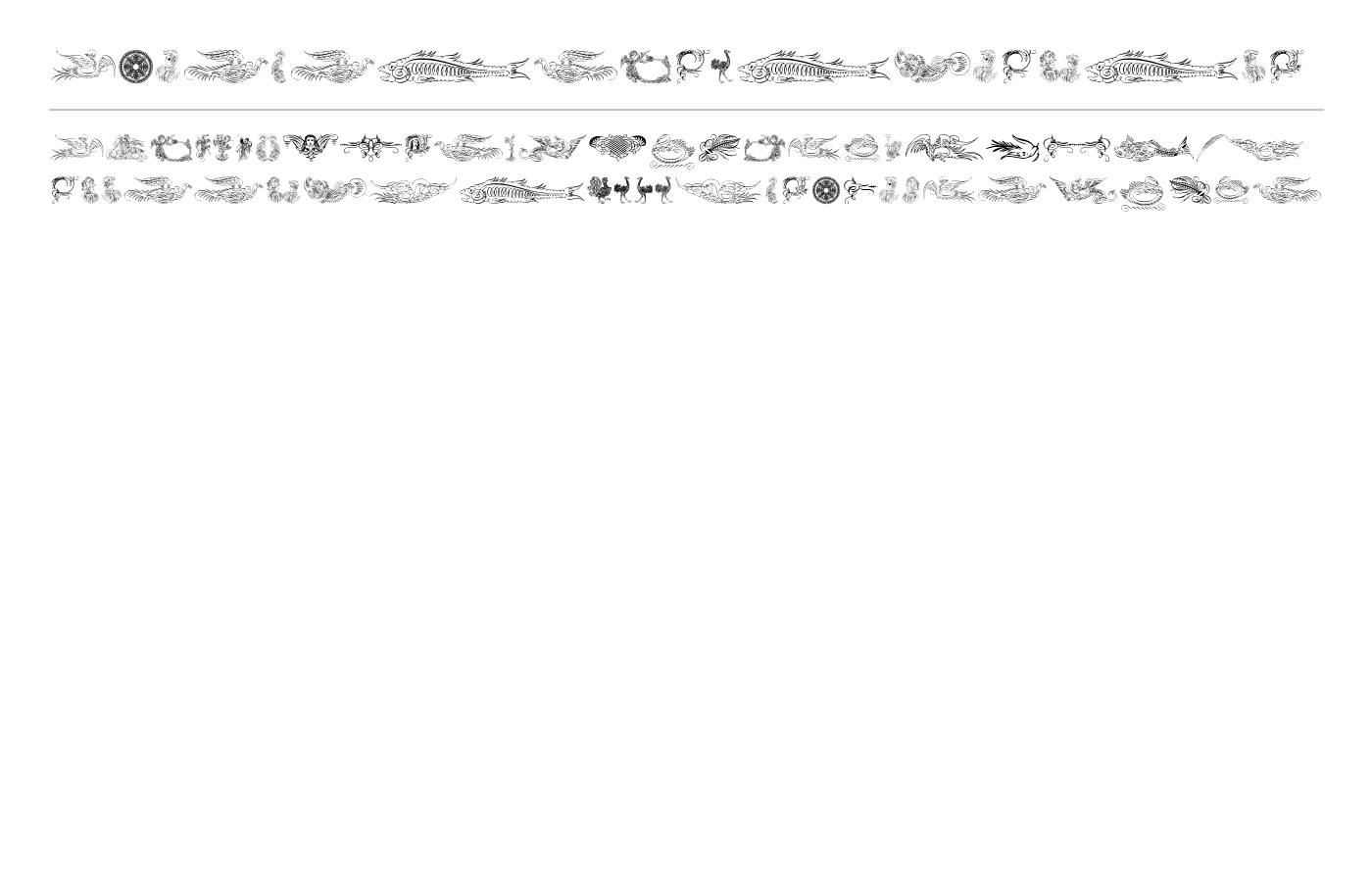
AprendizCaligrafico is a highly decorative ornamental font featuring intricate, vintage-style illustrations instead of traditional letters. Its detailed, baroque-inspired motifs evoke a historical, artistic feel ideal for adding a unique flourish to design projects. This font works best in creative branding, invitations, or editorial accents where a rich, classical aesthetic is desired.
AprendizCaligrafico Font
About AprendizCaligrafico Font